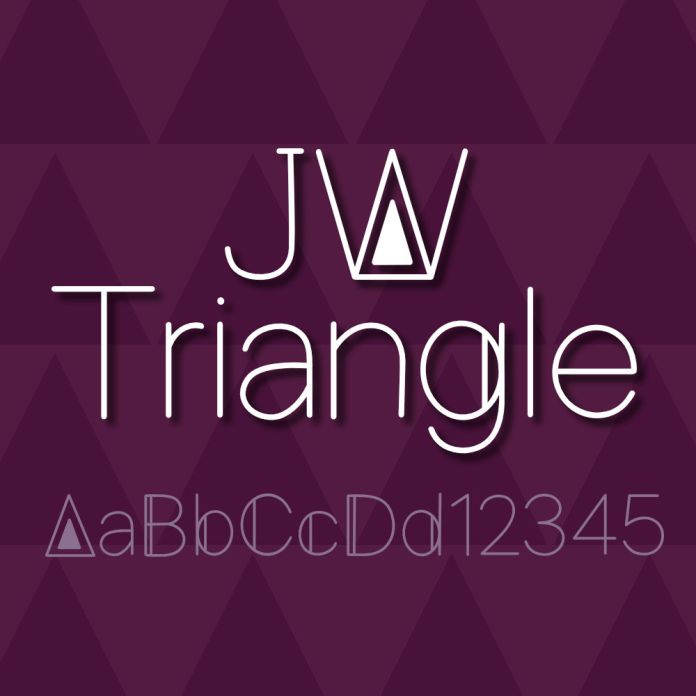
JW Triangle Font is a modern and geometric sans serif font characterized by sharp triangular elements in each letter. Its sleek and futuristic style makes it perfect for branding, headlines, and graphic design projects that require a contemporary and edgy look.